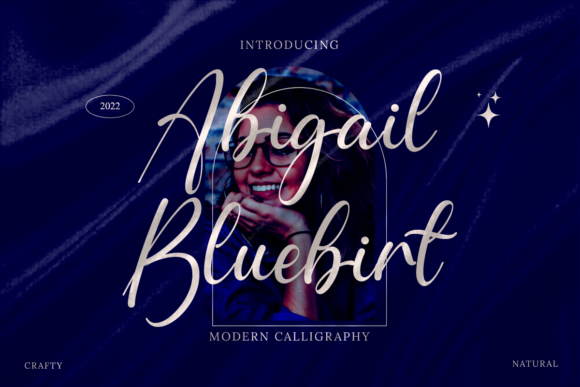
Introduce the Enchanting Abigail Bluebirt Font, a Script Font Family Destined to Captivate
In the realm of design, where creativity reigns supreme, there exists a font that dances with charm and radiates whimsical energy. We present to you the Abigail Bluebirt Font, a script font family crafted with meticulous attention to detail to evoke a sense of joy and intrigue.
Journey into a world of boundless creativity, where Abigail Bluebirt's playful strokes and vibrant personality add a touch of magic to every project. Whether you're a seasoned designer seeking to elevate your work or a budding artist yearning to express your individuality, this font will be your trusted companion.
Discover the Endless Possibilities with Abigail Bluebirt, the Ultimate Script Font for Flat Design
Abigail Bluebirt's versatility knows no bounds, making it the perfect choice for a multitude of design projects. From eye-catching logos that demand attention to vibrant social media graphics that ignite engagement, this font effortlessly adapts to your creative vision.
Embrace the Beauty of Imperfection with Abigail Bluebirt's Unique Quirks
Imperfection is often where true beauty resides. Abigail Bluebirt embraces this philosophy with its charmingly irregular strokes and playful quirks. Each letter dances with a life of its own, adding a touch of personality that sets your designs apart.
Abigail Bluebirt: The Perfect Font for Adding a Dash of Delight to Your Projects
With its ability to transform the ordinary into the extraordinary, Abigail Bluebirt is the perfect font for adding a dash of delight to your projects. Let your imagination soar as you create designs that sparkle with joy and captivate your audience.
Experience the Abigail Bluebirt Difference Today and Witness the Magic Unfold